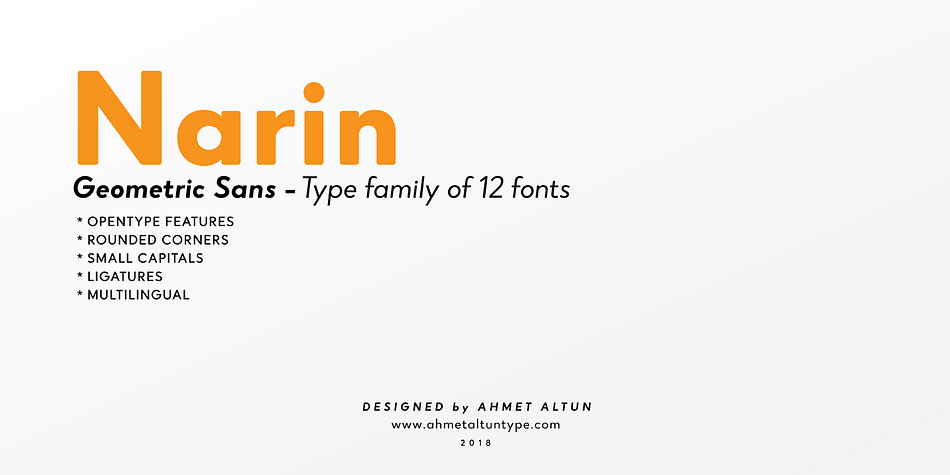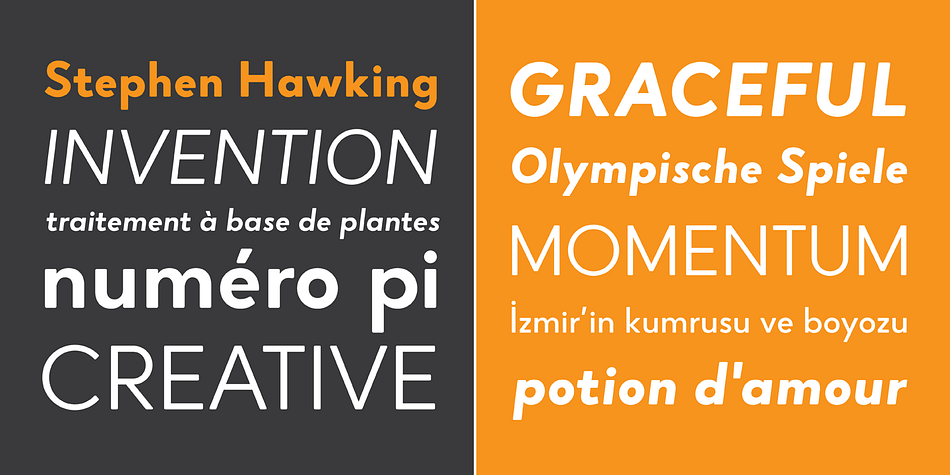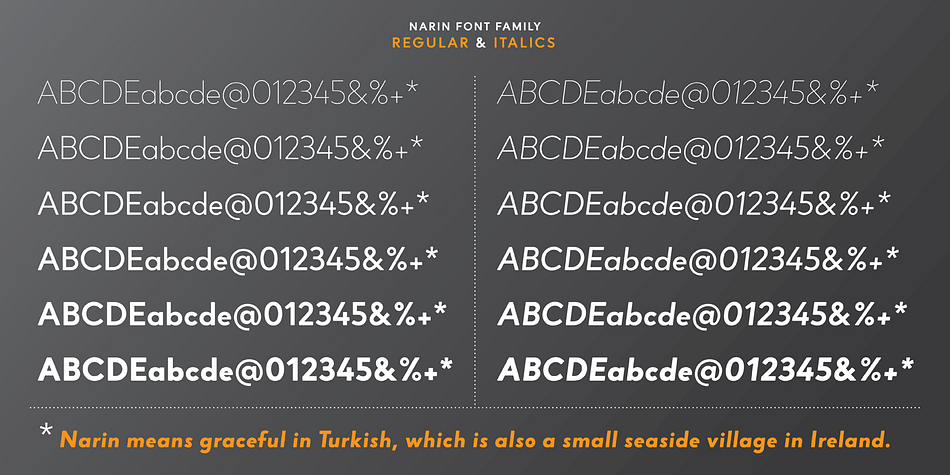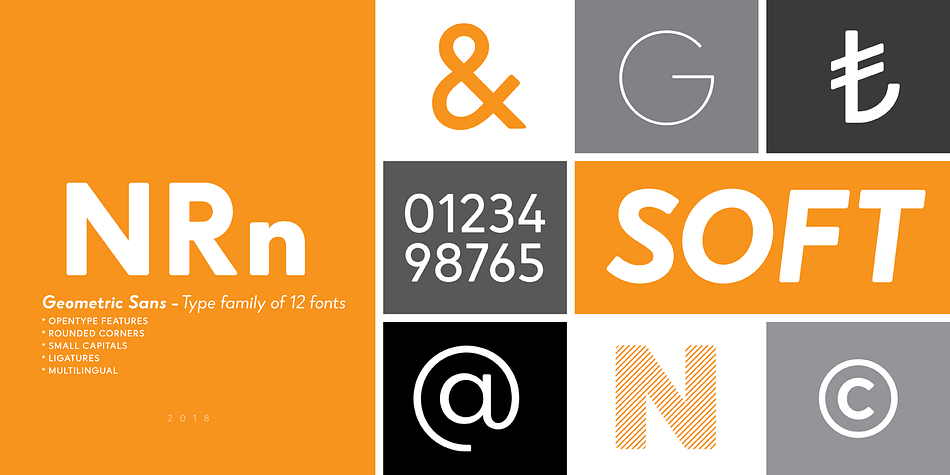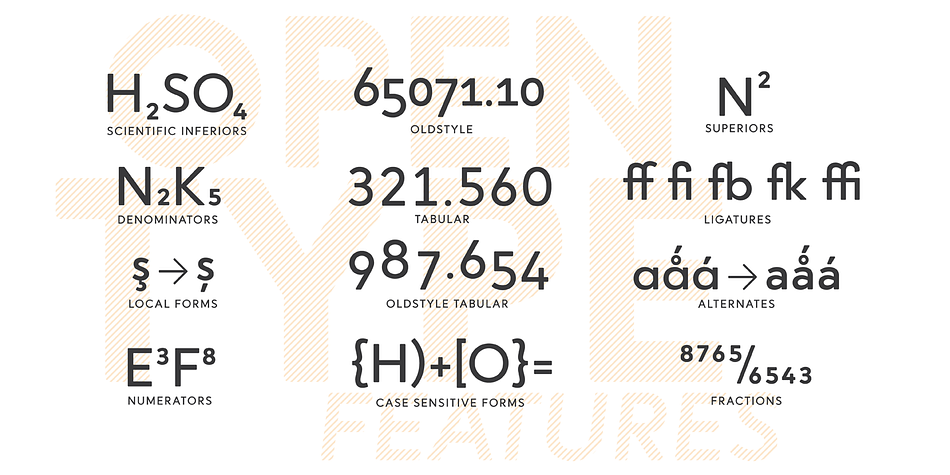
Designed by Ahmet Altun, Narin is a sans serif font family. This typeface has twelve styles and was published by Ahmet Altun.
Narin Font Family is a geometric sans design with rounded corners which seems much softer and eye-pleasing even though it still has geometric and straight borders. The family comes in six weights with regular and italic forms.
Narin Font Family is legible from very small size to very large ones. It is suitable for letterpress and also long texts. With the small caps, all fonts can be used to create great and gorgeous works like logos, texts, presentations, t-shirts etc. and can be used to create the pressworks such as posters, magazines and books.
The word “Narin” means “graceful” in Turkish.